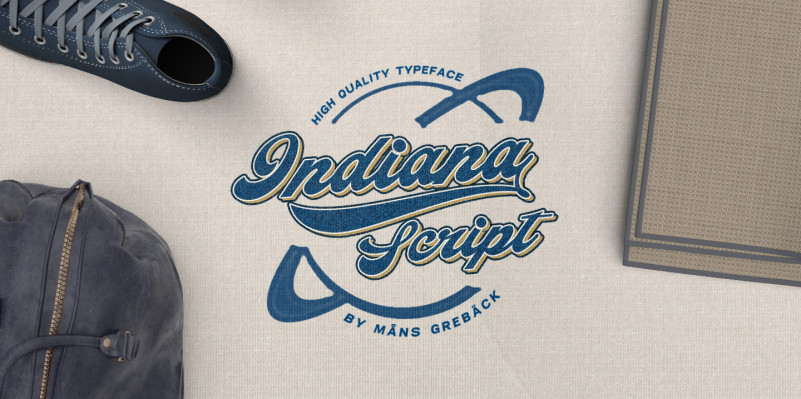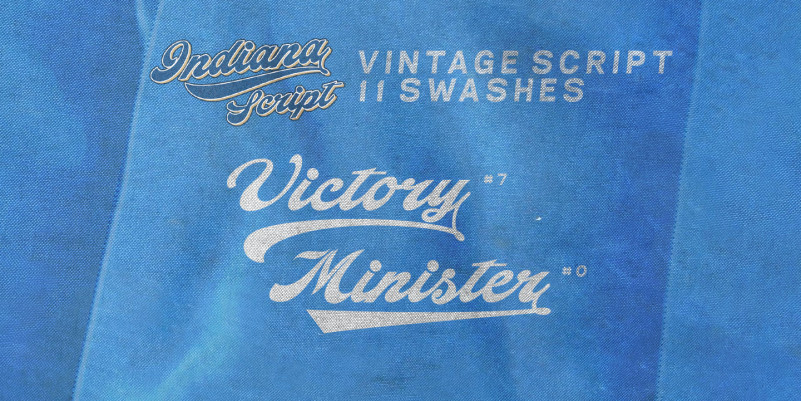
Indiana Script Font
Indiana Script Font, This font is perfect for stickers, retro projects, craft projects, shirts, svg designs, procreate designs, branding, blogs, logos, invitations and more!
Write _ after a word to get a swash.
Example: Indiana_
With ligatures activated, write _ and a number for more swashes.
Example: Visual_2 Music_6